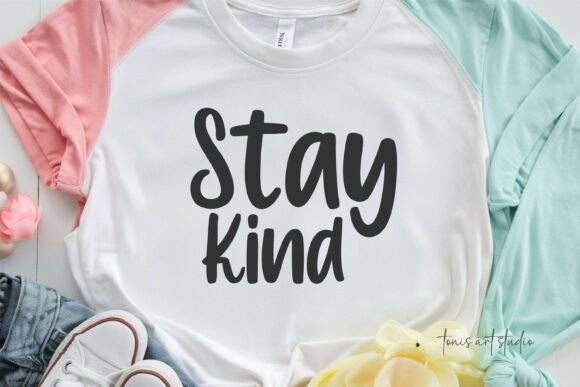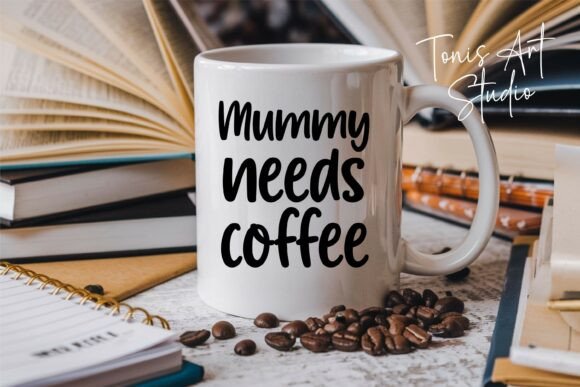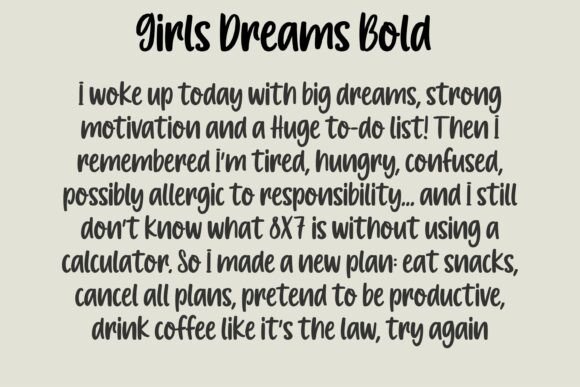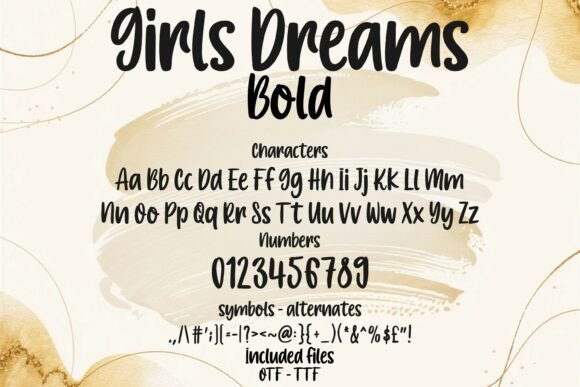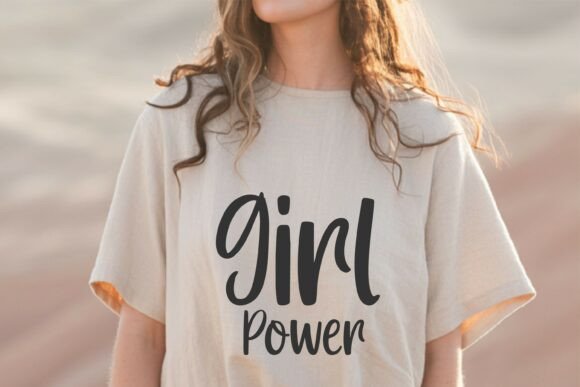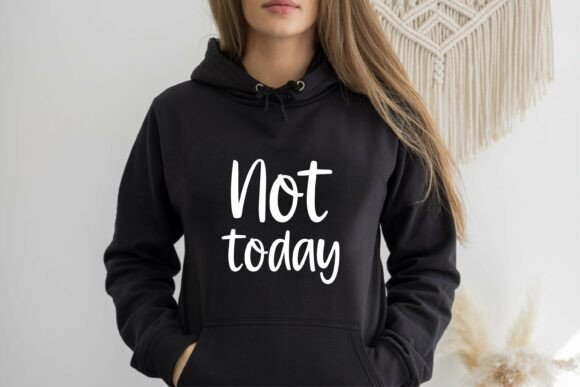
Introducing Girls Dreams Font: A Playful Handwritten Font Family
Are you looking for a font that can add a touch of playfulness and creativity to your designs? Look no further than Girls Dreams, a charming handwritten font family that is perfect for a variety of projects. In this article, we’ll take a closer look at the Girls Dreams font family and explore its features, benefits, and uses.
A Font Family with Three Charming Styles
Girls Dreams is a versatile font family that consists of three distinct styles: Regular, Bold, and Line. Each style has its own unique personality, allowing you to choose the one that best suits your design needs. The Regular version of the font has a relaxed, handwritten flow that is perfect for creating a sense of warmth and approachability. The Bold version, on the other hand, stands out beautifully in titles and quotes, making it ideal for designs that require a bit more emphasis. The Line version is perfect for creating outlines, coloring pages, layering, and notebook designs.
Girls Dreams is a font that can be used in a wide range of projects, including planners, stickers, classroom materials, Goodnotes pages, student worksheets, social media posts, and quotes. Its playful and creative feel makes it perfect for designs that require a bit of whimsy and fun. Whether you’re a designer, teacher, or crafty person, this font family is sure to become a favorite.
Capture Youthful Expression with Bouncy Lines and Smooth Curves
One of the standout features of Girls Dreams is its ability to capture youthful expression through its bouncy lines and smooth curves. The font has a natural, handwritten feel that adds warmth and character to everyday creations. Whether you’re designing planner pages, motivational stickers, teacher resources, greeting cards, notebook covers, branding elements, or bullet journal spreads, Girls Dreams is sure to bring a touch of playfulness and creativity to your designs.
Flexible and Playful Charm in Every Stroke
So, what are the benefits of using Girls Dreams for designers and crafters? Here are just a few:
- Playful and creative feel: Girls Dreams adds a touch of playfulness and creativity to any design project.
- Versatility: The font family consists of three distinct styles, making it perfect for a wide range of design projects.
- Flexible: The font family can be used in a wide range of projects, from planners and stickers to social media posts and quotes.
In conclusion, Girls Dreams is a playful handwritten font family that is perfect for designers and crafters looking to add a touch of creativity and playfulness to their designs. With its three charming styles, versatility, and ease of use, this font family is sure to become a favorite. Whether you’re designing planner pages, motivational stickers, teacher resources, greeting cards, notebook covers, branding elements, or bullet journal spreads, Girls Dreams is the perfect choice.